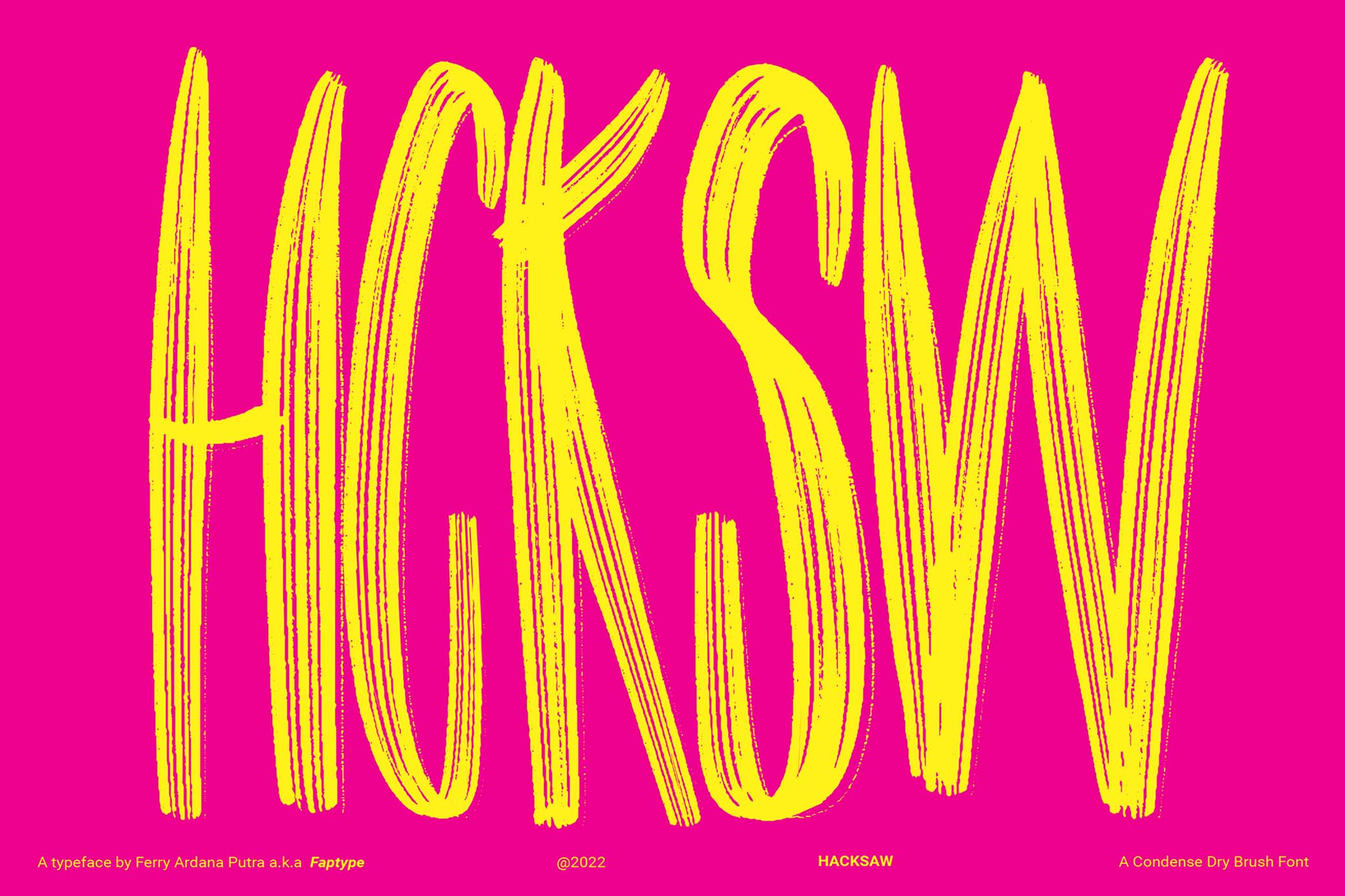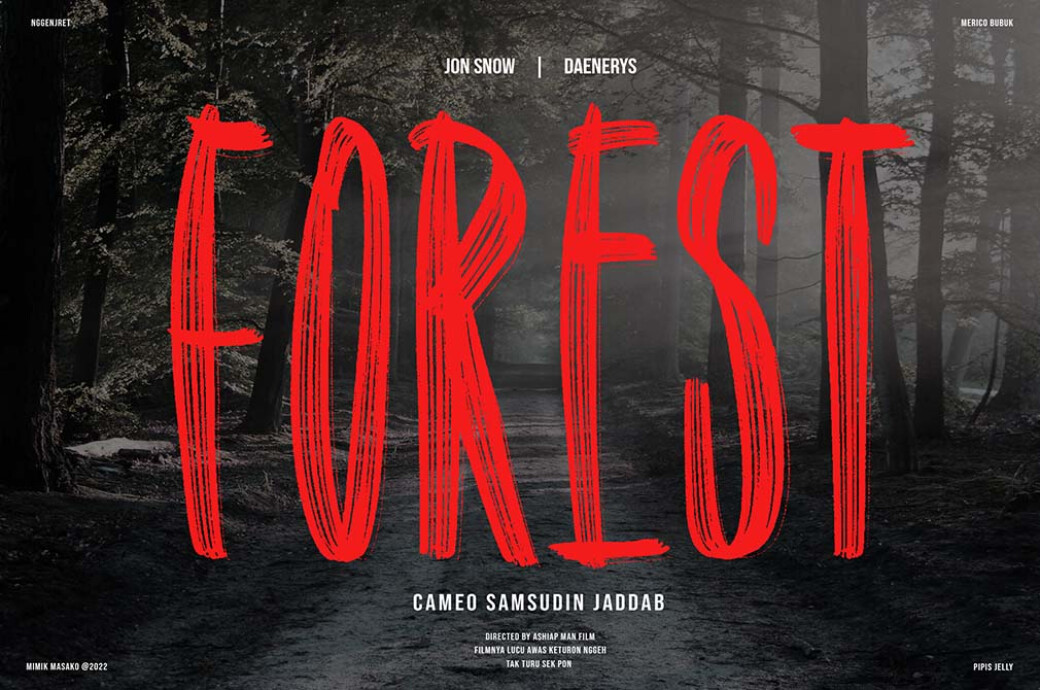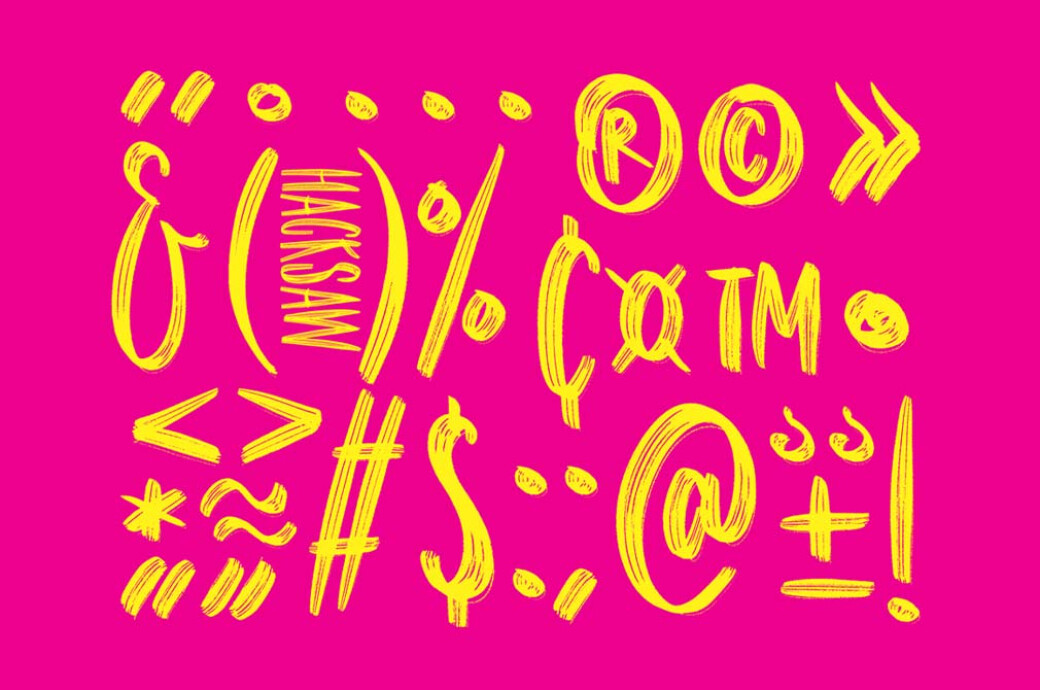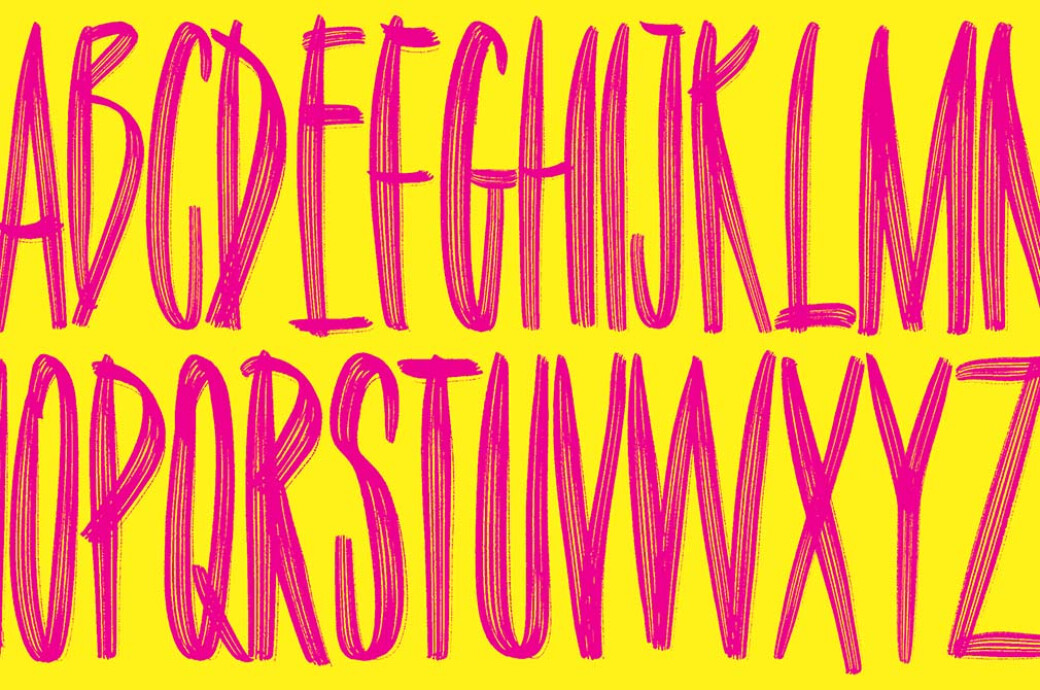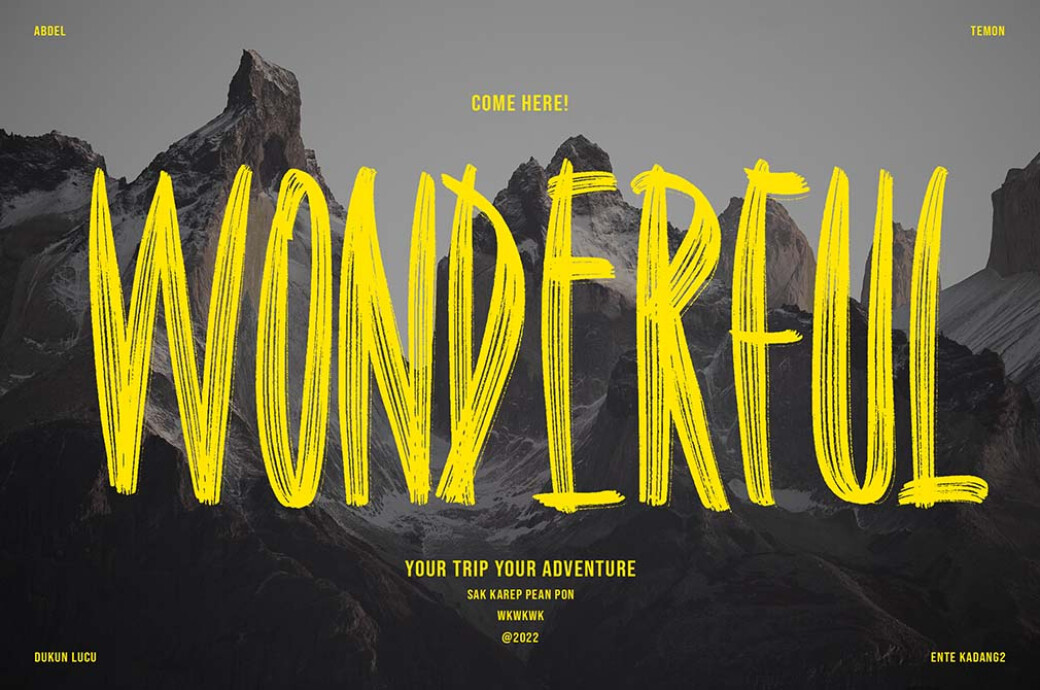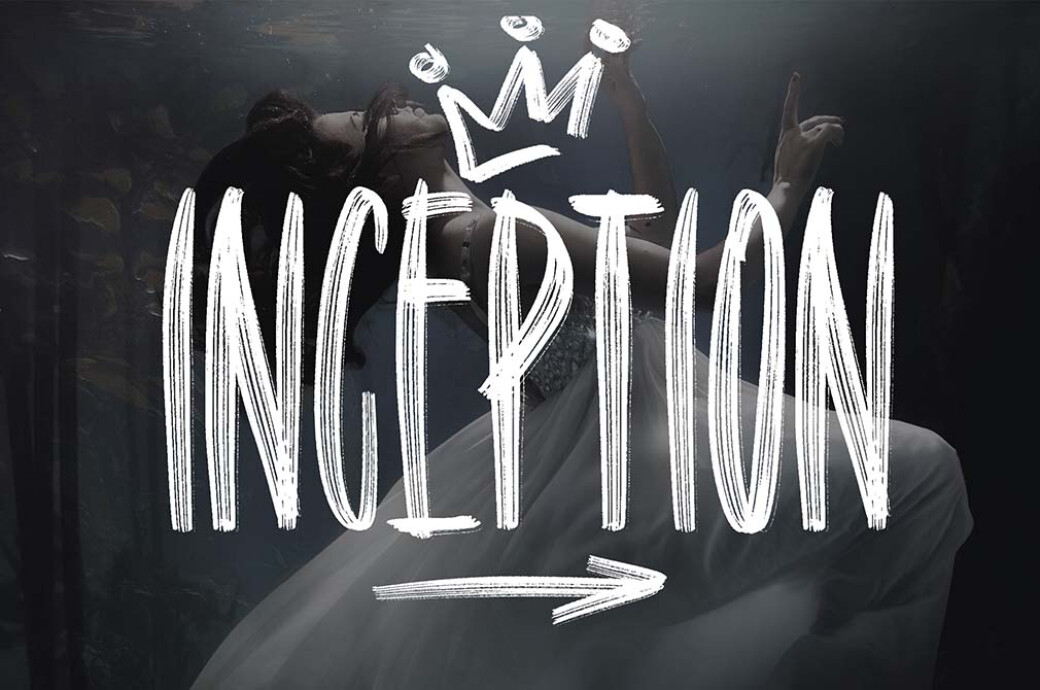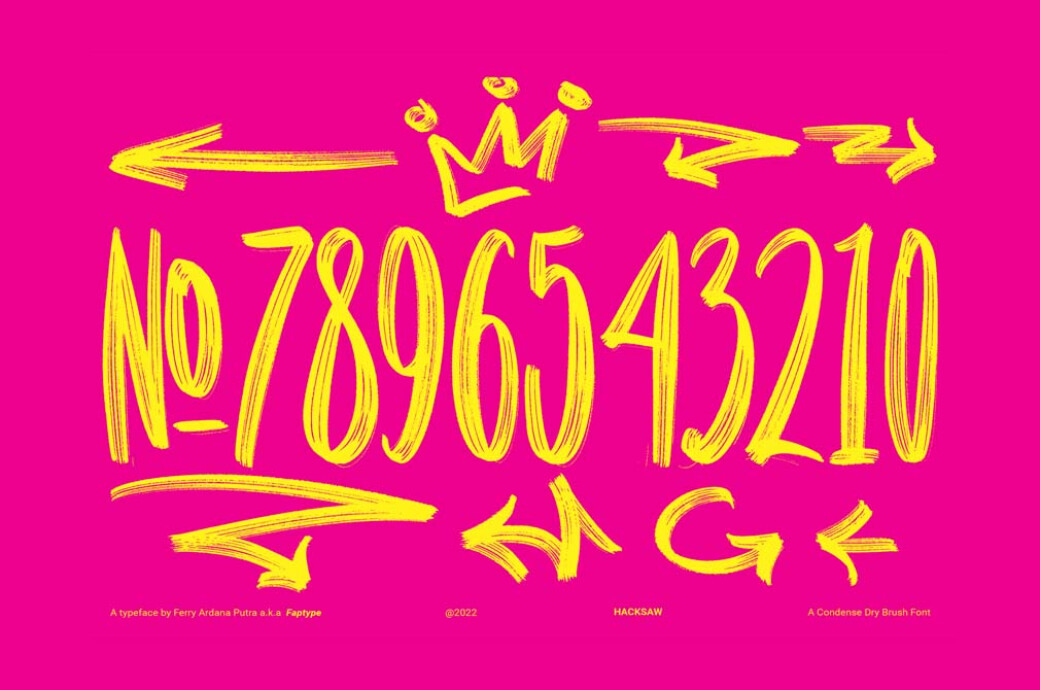
Hacksaw — Condensed Dry Brush Font
Hacksaw was made precisely for those who favor wildness over polished typography. So dip the brush into a bucket of paint and prepare for an outburst of creativity.Hacksaw is a dry brush font. It's super condensed, with a distinct trippy vibe, perfect for branding, headlines, artisan goods, quotes, and logos. Hacksaw includes a complete character set, international characters, numbers punctuation, and a dozen shashes. The font is PUA encoded.